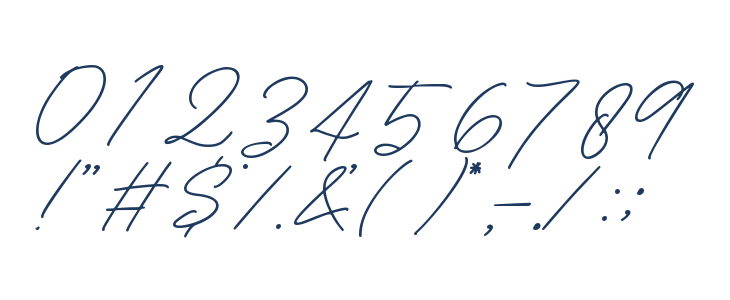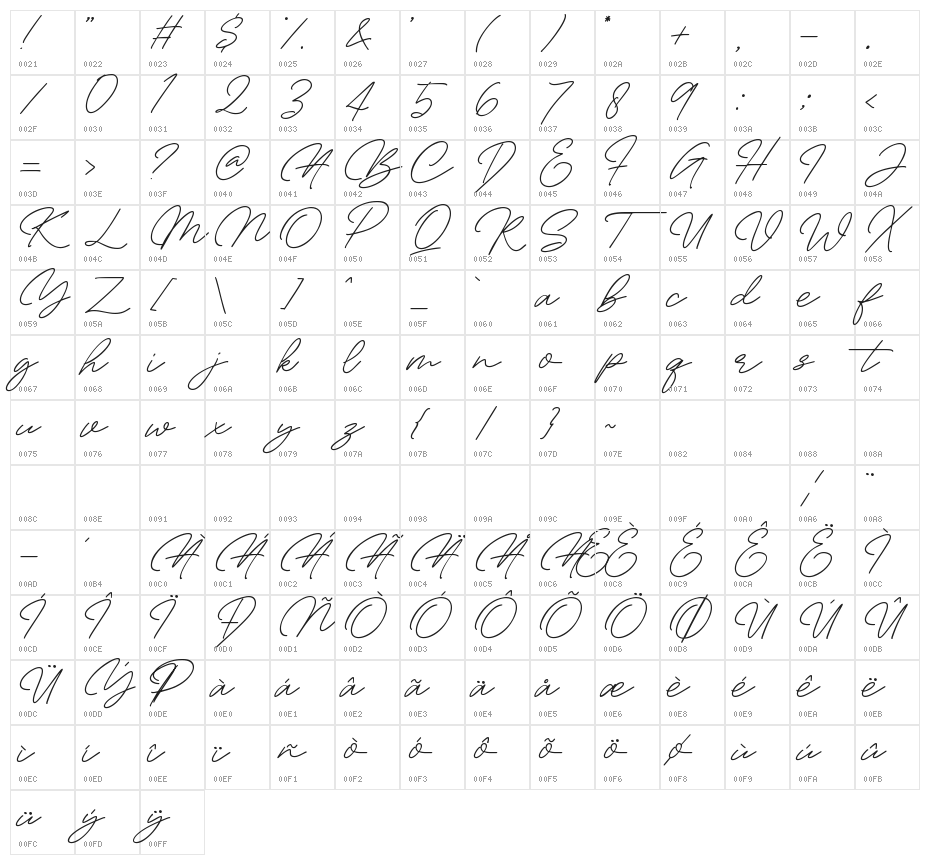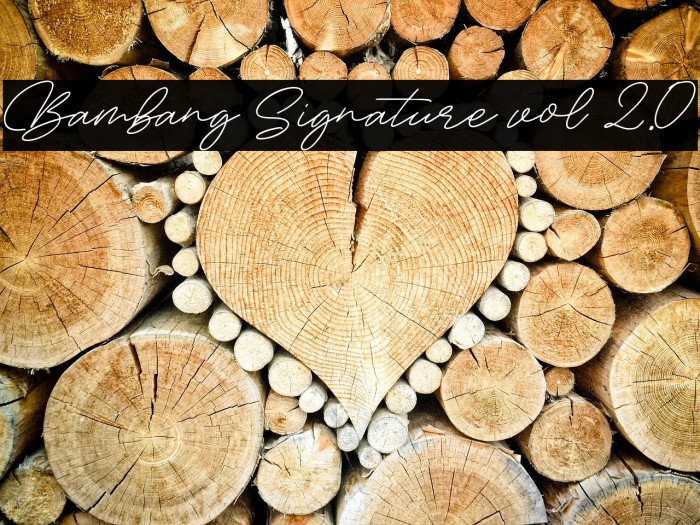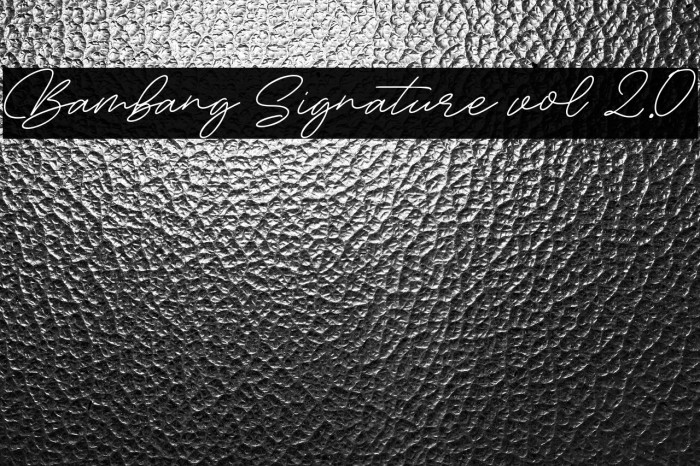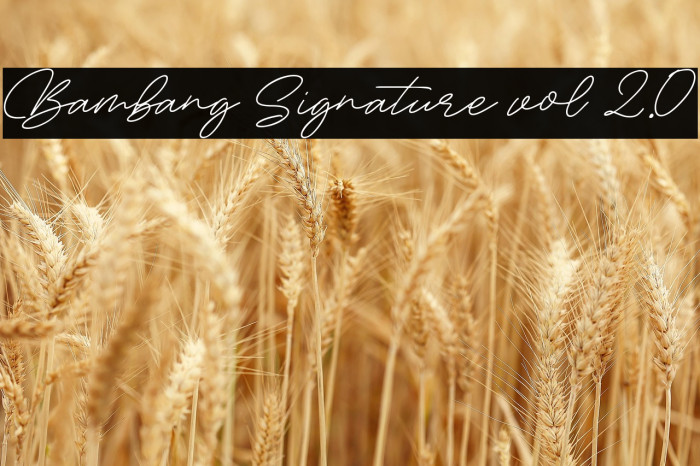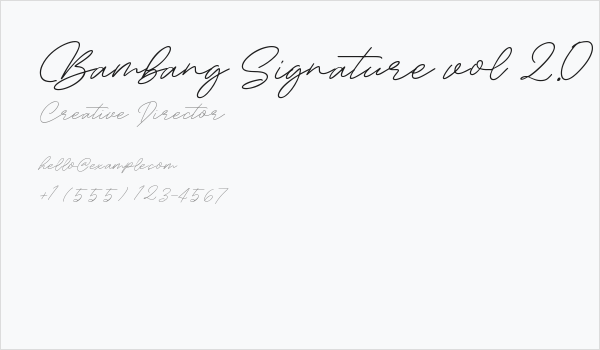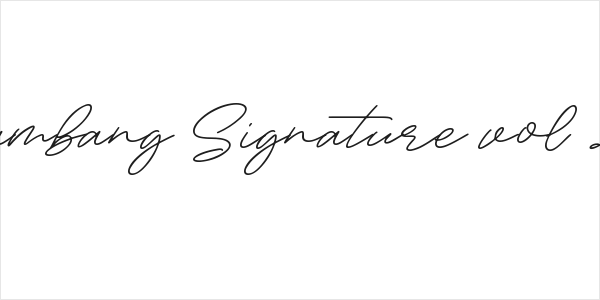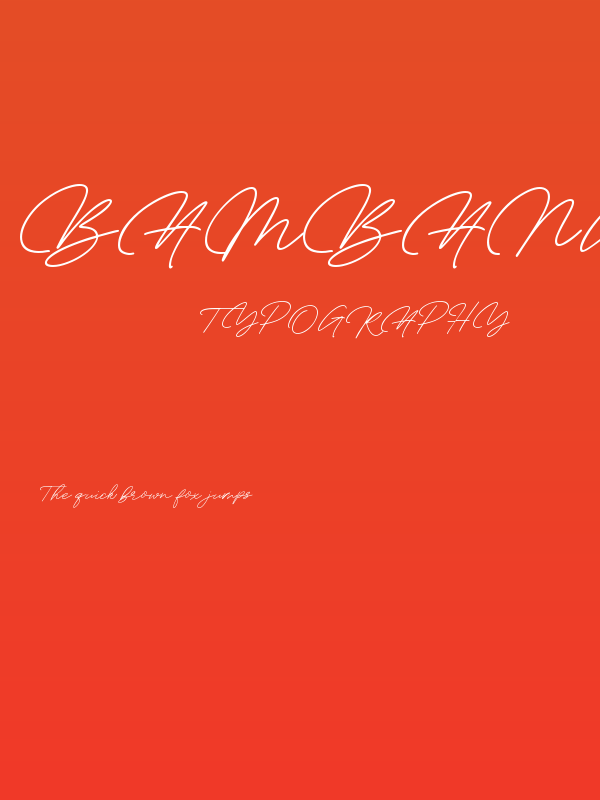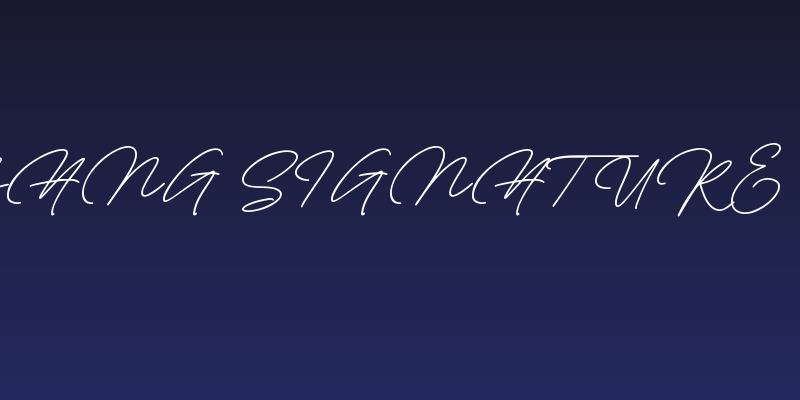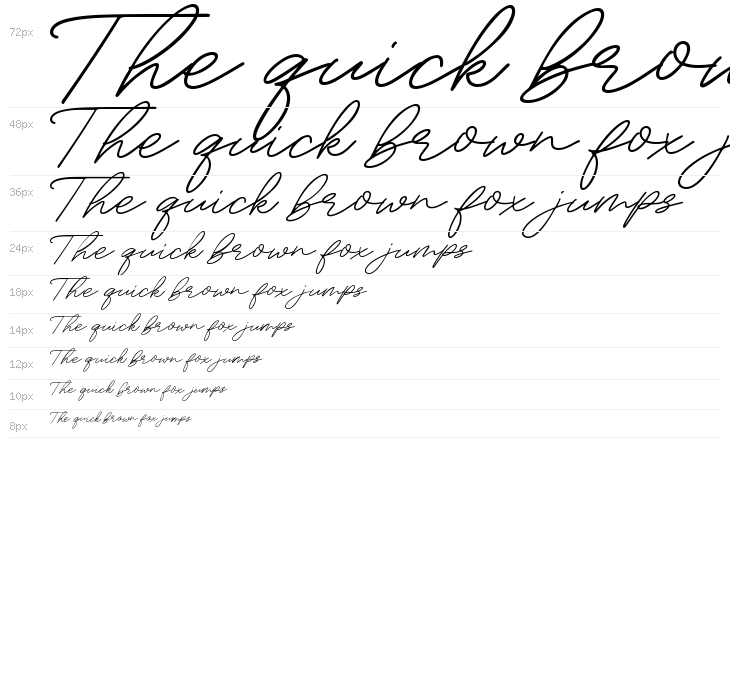
Bambang Signature vol 2.0 Font
Bambang Signature vol 2.0 Description
This elegant script font features a fluid, handwritten style with smooth, flowing lines that mimic the natural movement of a pen. The uppercase letters are slightly more structured, maintaining a consistent height, while the lowercase letters exhibit a graceful, cursive form. The numerals and special characters complement the alphabet with a similar fluidity, ensuring a cohesive look across all text. The font's delicate strokes and subtle variations in line thickness give it a sophisticated and personal touch, making it ideal for projects that require a touch of elegance and individuality.
| Overall Style | Elegant, Handwritten |
| Use Case | Logos, Invitations, Personal branding |
| Proposed Projects | Ideal for wedding invitations, personal branding, greeting cards, and elegant packaging designs. |